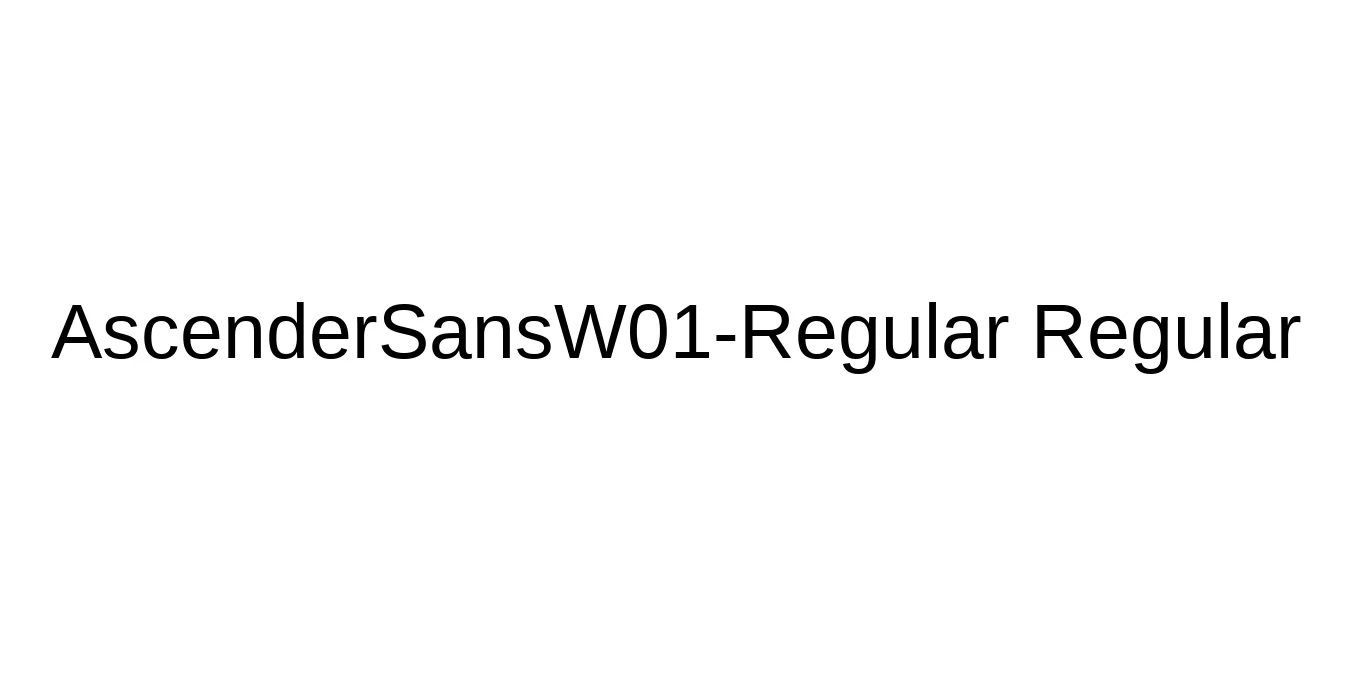
AscenderSansW01-Regular Regular
Designed by Steve Matteson
Ascender Sans W01-Regular was designed by Steve Matteson as part of the Ascender Serif and Sans collection. It was meticulously developed to be a highly legible and versatile typeface that functions exceptionally well across both digital screens and high-resolution printed media. The design philosophy behind this font balances subtle humanist traits with geometric stability, making it a reliable choice for professional environments requiring a neutral yet friendly tone.
Known for its large x-height and open counters, Ascender Sans offers superior readability even at small point sizes. It has been widely adopted in corporate branding, software interfaces, and mobile applications where clarity is paramount. Its clean lines and professional aesthetic ensure it remains a staple in modern graphic design for developers and designers looking for a workhorse font.
AscenderSansW01-Regular Best Uses
Ideal for body text and UI elements due to high legibility and clear letterforms.
Perfect for business documents, professional presentations, and minimalist logos.
Excellent rendering on small screens and low-resolution displays for enhanced user experience.